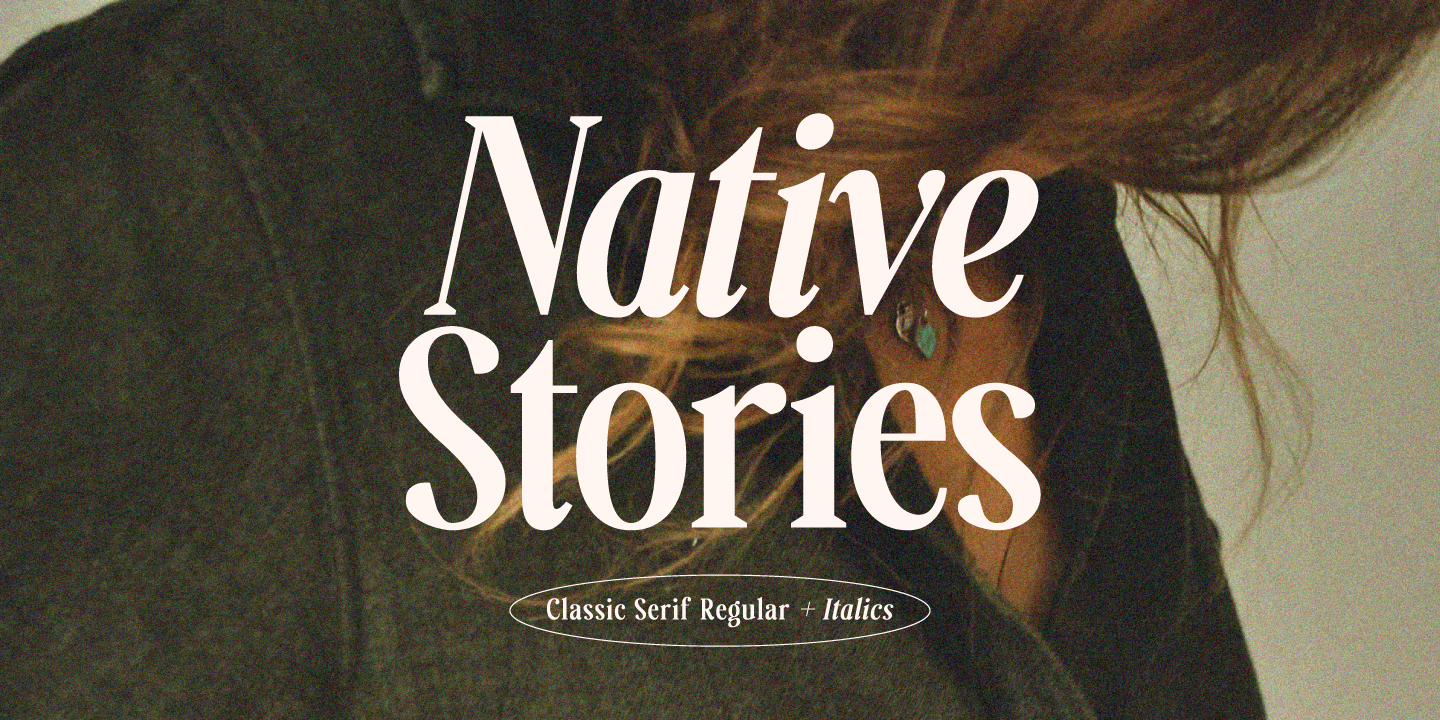
Native Stories Font is perfect for indigenous cultural projects, traditional storytelling materials, cultural heritage preservation, tribal organization branding, ceremonial event promotions, ancestral history publications, indigenous art exhibitions, and authentic cultural communications. This meaningful typeface excels in applications requiring respectful cultural representation and traditional storytelling aesthetic that honors indigenous heritage and ancestral wisdom traditions.
What makes Native Stories Font exciting is its respectful homage to indigenous artistic traditions that captures the essence of oral storytelling and cultural heritage through thoughtfully crafted letterforms. The font features organic character construction with traditional styling elements and cultural authenticity that honor indigenous artistic heritage while ensuring contemporary functionality for modern cultural preservation and educational applications.
The Native Stories Font family includes regular and decorative variations with traditional cultural elements, offering designers respectful tools for creating authentic indigenous communications. The family provides consistent cultural aesthetic with varying traditional complexity for authentic heritage communications and indigenous branding projects requiring genuine cultural sensitivity and respectful artistic representation.
The thoughtfully crafted letterforms of Native Stories Font ensure cultural appropriateness while maintaining excellent readability for educational and cultural applications, making it suitable for both traditional publications and modern digital presentations. This culturally sensitive typeface combines indigenous artistic heritage with contemporary technical standards for outstanding performance in design environments requiring authentic cultural representation and respectful traditional storytelling character.